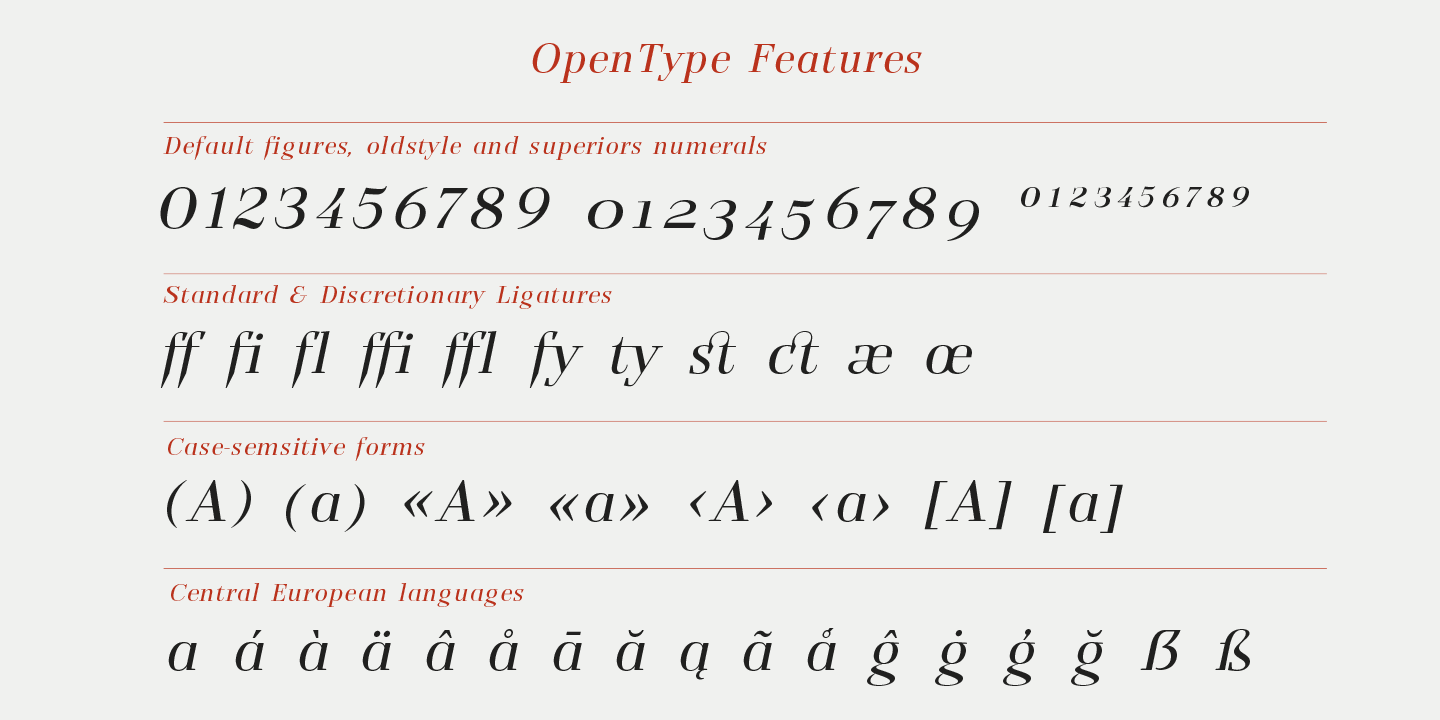
Fortezza Font is perfect for Italian luxury branding, fortress-inspired architecture signage, medieval castle tourism, prestigious wine estates, high-end security companies, solid financial institutions, military academy materials, stone masonry businesses, heritage protection projects, and any projects that need powerful typography with fortress-like strength and Italian architectural grandeur.
What makes Fortezza Font exciting is its monumental design that embodies the unshakeable strength and architectural magnificence of Italian fortresses with letterforms that stand like ancient stone towers built to withstand the test of time. This commanding typeface features robust characteristics with fortress-like solidity that evokes medieval castles, Renaissance palazzos, and the enduring strength of Italian architectural mastery that has inspired the world for centuries. The font's fortress character makes it perfect for brands seeking to communicate security, permanence, and the uncompromising strength that builds lasting legacies and protects what matters most.
Fortezza Font family includes fortress-grade style variations featuring regular, bold, condensed, and ultra versions. The font family also contains architectural decorative elements, castle symbols, stone ornaments, and Italian heritage dingbats that enhance the monumental atmosphere. Additional options include weathered variants that simulate ancient stone aging, along with special character sets designed for different fortress moods and architectural heritage applications.